Flower fonts represent one of typography’s most captivating trends in 2026—these delicate typefaces seamlessly blend organic beauty with functional design, creating letters that feel like they’ve been hand-picked from a secret garden.
The appeal goes far beyond mere aesthetics. Flower fonts serve as powerful storytelling tools, transforming ordinary text into botanical masterpieces that evoke emotion and create lasting impressions.
From wedding invitations to brand identities, these floral typefaces elevate any project. Whether you’re designing for a boutique florist or adding natural elegance to corporate materials, flower fonts deliver that perfect balance of professionalism and organic charm that today’s audiences crave.
The Most Blooming Beautiful Flower Fonts of 2026
Not all flower fonts are created equal – some truly capture that organic, natural beauty while others feel forced or artificial. I’ve curated this list of the most gorgeous floral typefaces that are making designers swoon in 2026:
Wonder Floral Font
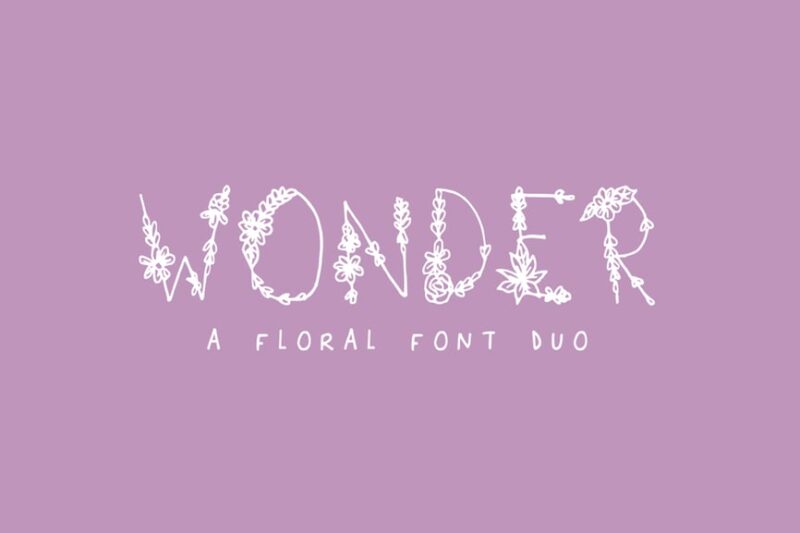
This sans-serif font features delicate floral and flower elements integrated into its letterforms. It’s perfect for designs that require a touch of nature and elegance, ideal for branding, packaging, or wedding invitations.
Cute Flowers Dingbat
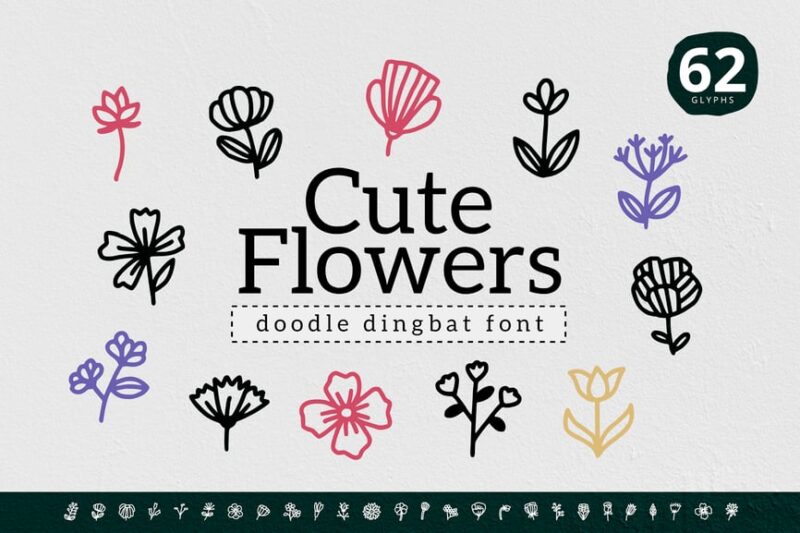
A charming set of floral symbols and decorative elements. This dingbat font is versatile for creating cute, flower-themed designs, perfect for children’s products, greeting cards, or social media graphics.
The Floral Font
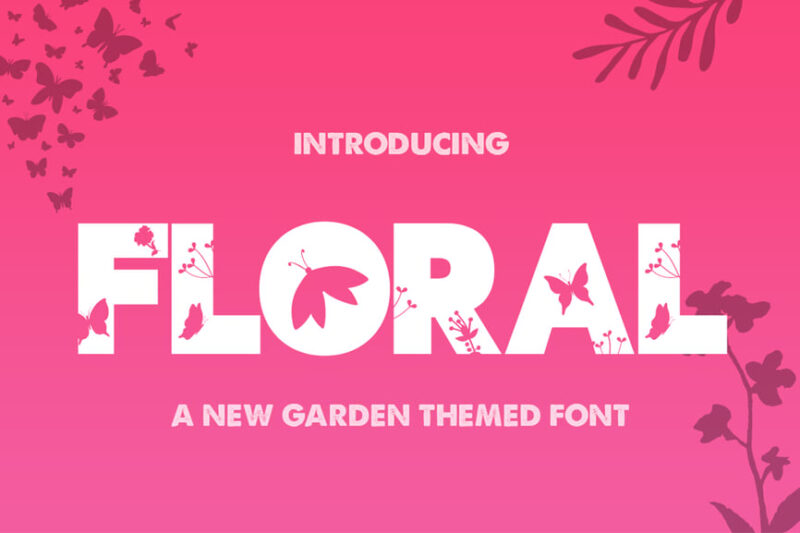
A sans-serif typeface with intricate flower and leaf details incorporated into each character. This font is ideal for creating eye-catching headlines or logos, especially for nature-inspired or botanical-themed projects.
Garden Flower
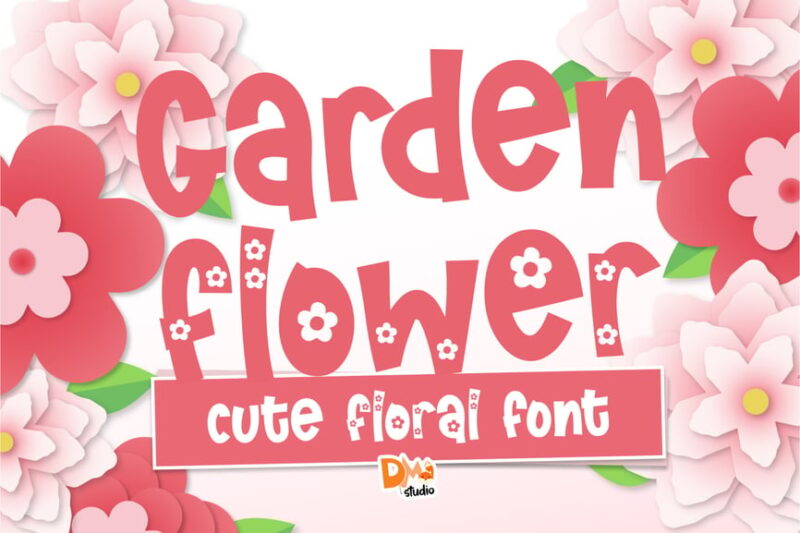
This decorative sans-serif font features agricultural and floral motifs. It’s perfect for designs related to gardening, farm-to-table concepts, or organic products, adding a natural and rustic feel to your typography.
Flowering Cute Handwriting Font with Flowers
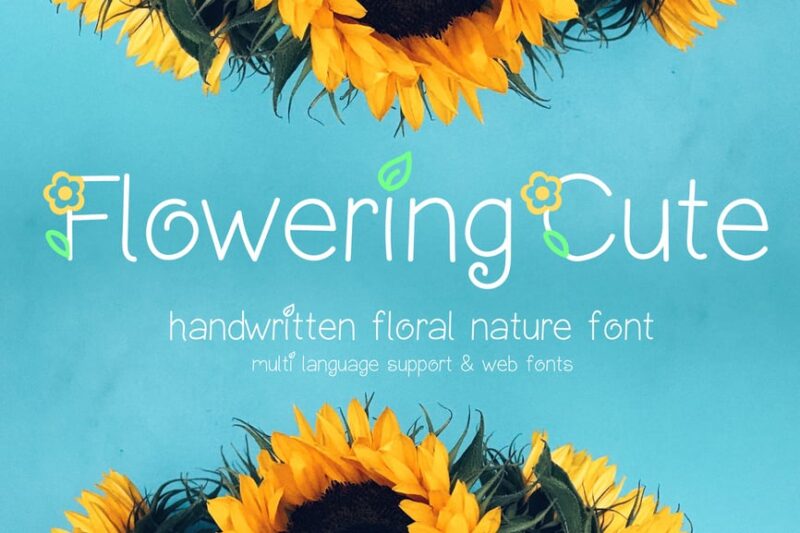
A playful script font with floral embellishments, combining handwritten charm with decorative elements. This versatile typeface is excellent for creating whimsical designs, especially for products targeting a feminine audience.
Botany Festival
A decorative serif font with floral and botanical accents. This typeface evokes a vintage, natural feel, making it suitable for event posters, packaging for artisanal products, or nature-themed editorial designs.
Wild Flowers Dingbat Font
A collection of wildflower-inspired symbols and decorative elements. This dingbat font is perfect for adding natural, rustic touches to designs, ideal for creating borders, patterns, or illustrations for outdoor-themed projects.
Flóra – A Delicate Floral Font
A beautifully crafted decorative font with intricate floral details. This feminine and romantic typeface is perfect for wedding invitations, beauty product packaging, or any design that requires an elegant, nature-inspired touch.
Adenium Flower Font
A unique combination of script, decorative, and symbol elements with a beach and floral theme. This font is ideal for creating tropical-inspired designs, perfect for resort branding, summer event posters, or beachwear packaging.
Bahor – Hand Made Floral Typeface
A handcrafted serif font with delicate floral embellishments and a subtle nautical influence. This typeface is perfect for creating designs with a handmade, organic feel, suitable for natural cosmetics branding or seaside cafe menus.
Wildflower Blossom – Modern Serif
A modern serif font with decorative floral elements, offering a premium look. This typeface strikes a balance between elegance and nature-inspired design, making it suitable for high-end product packaging or editorial layouts.
WS Burst Flower
A decorative font featuring burst-like flower designs. This playful typeface is perfect for creating eye-catching headlines or logos for garden centers, florists, or children’s nature-themed products.
Flower Signature
A flowing script font with subtle floral accents. This elegant typeface is ideal for creating signature-like designs, perfect for personal branding, wedding stationery, or boutique logos with a touch of nature.
Florisa – Flowers Font
A decorative font where each character is composed of flower and plant elements. This unique typeface is perfect for creating standout headlines or logos for florists, botanical gardens, or nature-inspired brands.
So go ahead – let your next design project bloom with the perfect flower font. Your audience will thank you for bringing a little more beauty into their world, one elegant letterform at a time.